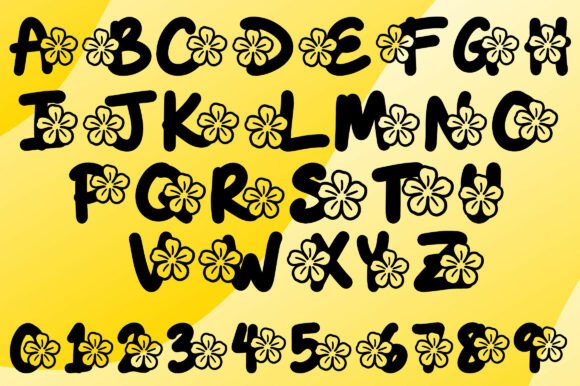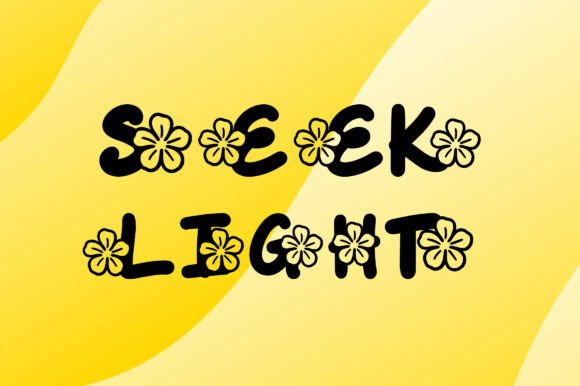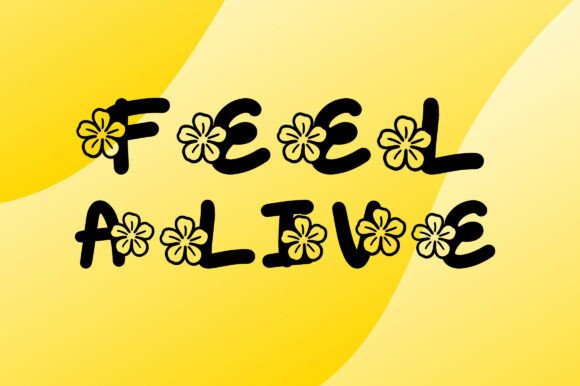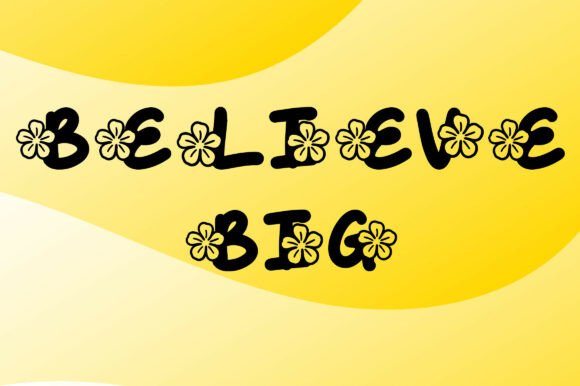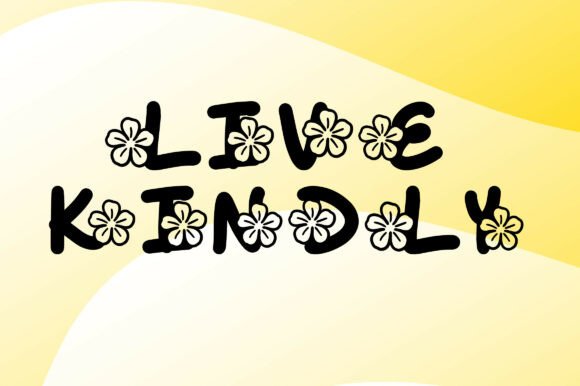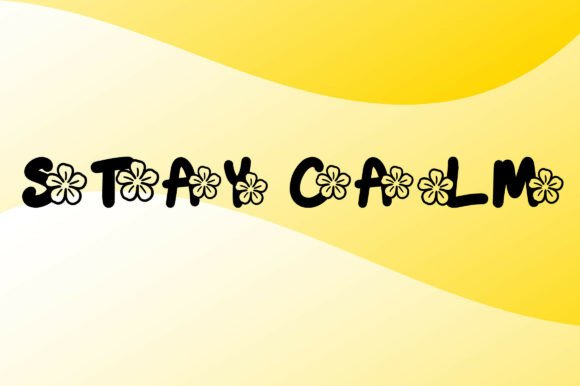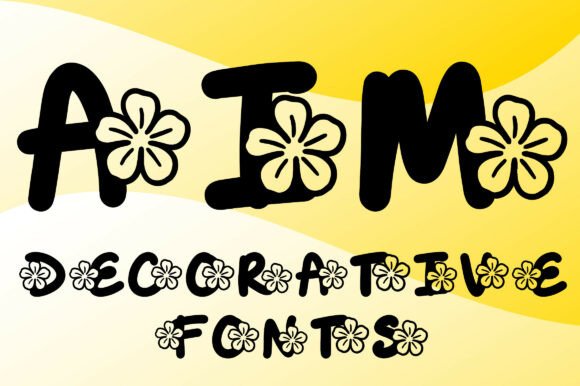
AIM Font: Elevate Your Designs with a Touch of Floral Elegance
In the world of typography, fonts play a crucial role in conveying the tone and personality of a brand or design. For those seeking a unique and creative edge, the AIM Font is an exceptional choice. Inspired by charming floral elements, this beautiful typeface is designed to bring a fresh, playful, and elegant touch to any project. Whether you’re a designer, crafter, or DIY enthusiast, AIM Font is the perfect addition to your creative toolkit.
The Beauty of AIM Font
AIM Font boasts a versatile decorative style that makes it suitable for a wide range of applications. From logos and branding to posters, invitations, packaging, and social media graphics, this font adds a touch of sophistication and whimsy to any design. The floral elements that inspired AIM Font bring a sense of organic charm, making it perfect for projects that require a personal and creative touch.
Endless Opportunities for Creative Expression
One of the standout features of AIM Font is its ability to add beauty, personality, and endless opportunities to express your creativity with style and imagination. The font’s unique and decorative style allows designers to experiment with various design elements, from bold and playful to elegant and refined. Whether you’re creating a brand identity, designing a poster, or crafting a social media graphic, AIM Font provides the perfect foundation for your creative vision.
AIM Font is an excellent choice for designers and crafters looking to elevate their work with a distinctive and stylish typeface. The font’s versatility makes it suitable for various design applications, including:
- Logos and Branding: Create a lasting impression with a unique and memorable logo that showcases your brand’s personality.
- Posters and Flyers: Add a touch of elegance and sophistication to your promotional materials.
- Invitations and Stationery: Make your invitations and stationery stand out with a beautiful and creative typeface.
- Packaging: Elevate your product packaging with a stylish and eye-catching font.
- Social Media Graphics: Create engaging and shareable social media graphics that reflect your brand’s personality.
Why Choose AIM Font?
With so many fonts available, why choose AIM Font? Here are just a few reasons why designers and crafters love this beautiful typeface:
- Unique and Creative: AIM Font offers a distinctive and stylish alternative to traditional typefaces.
- Versatile: Suitable for a wide range of design applications, from logos and branding to posters and social media graphics.
- Elegant and Playful: Adds a touch of sophistication and whimsy to any design.
In conclusion, AIM Font is a beautiful and creative typeface that offers a fresh, playful, and elegant touch to any project. With its versatile decorative style, endless opportunities for creative expression, and suitability for various design applications, AIM Font is an excellent choice for designers and crafters looking to elevate their work. Whether you’re seeking to create a lasting impression with a unique logo or add a touch of sophistication to your promotional materials, AIM Font is the perfect addition to your creative toolkit.